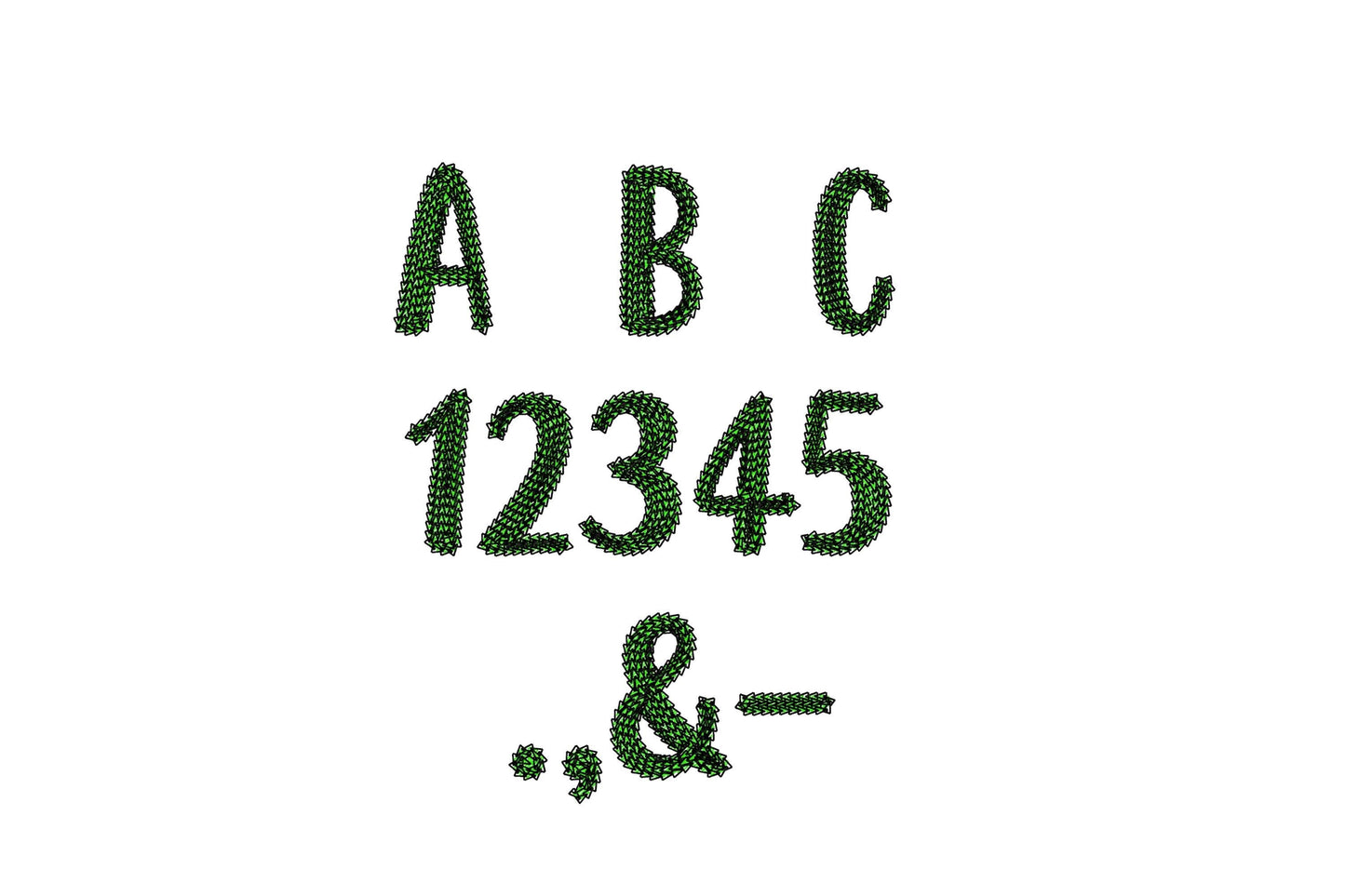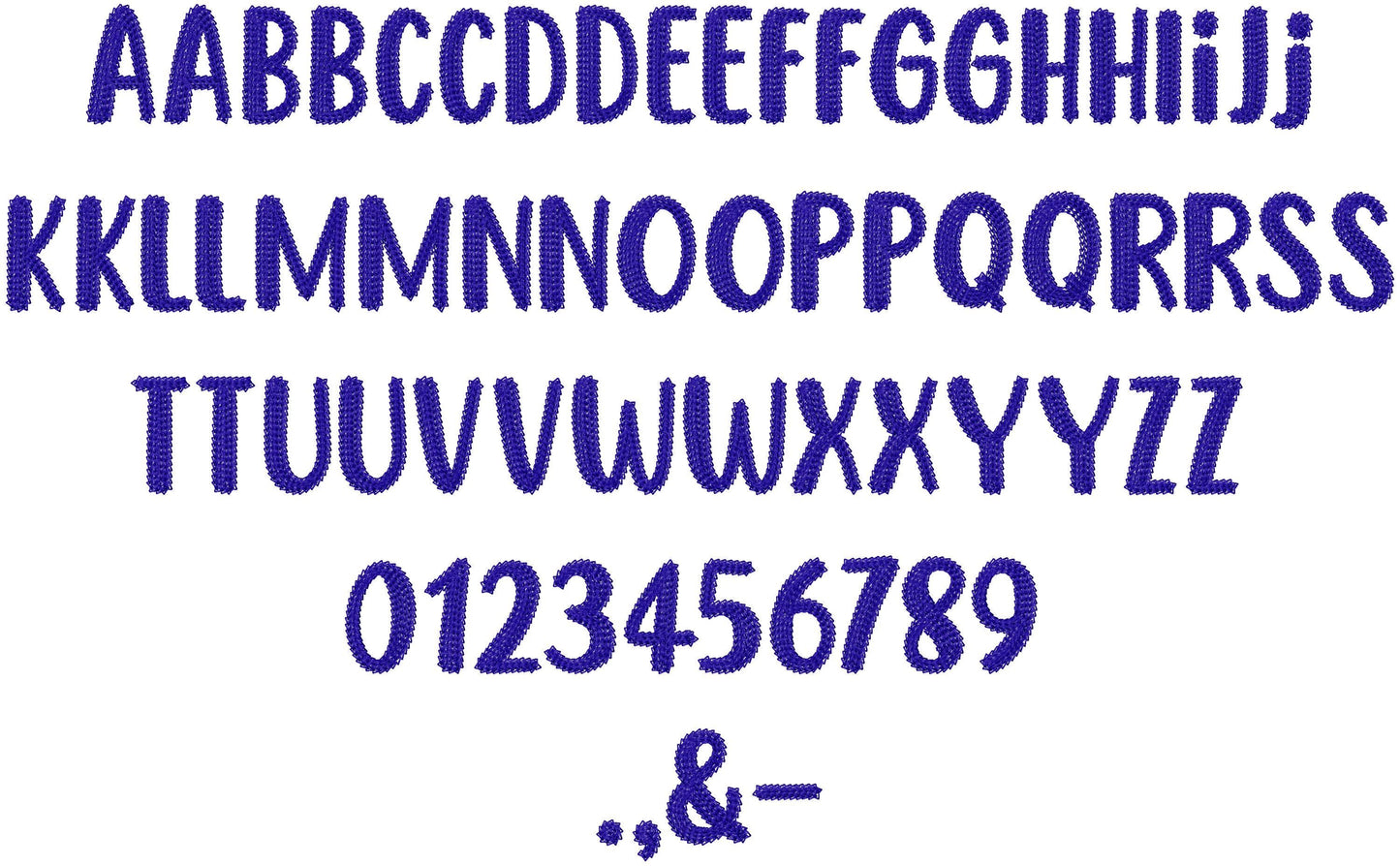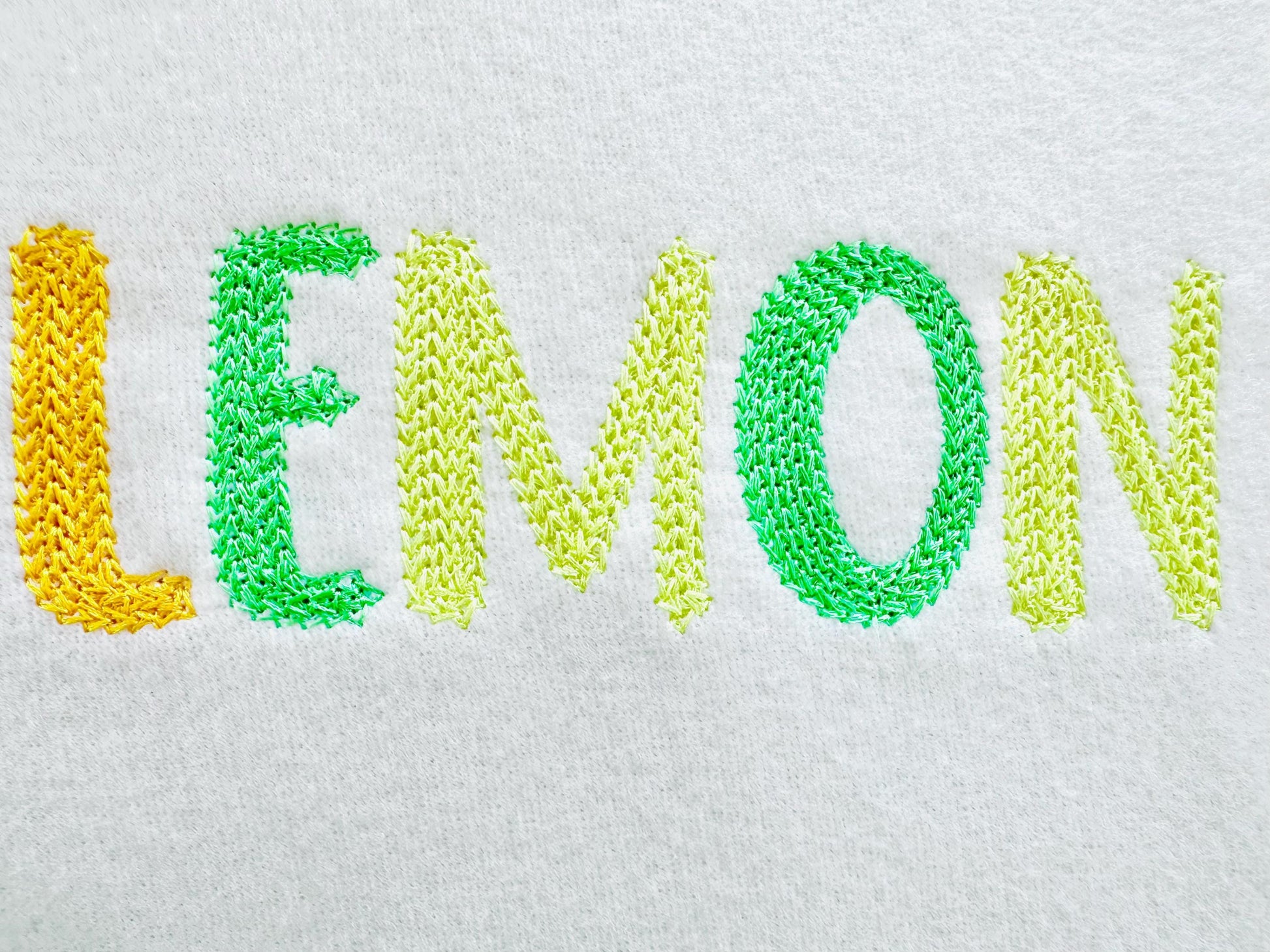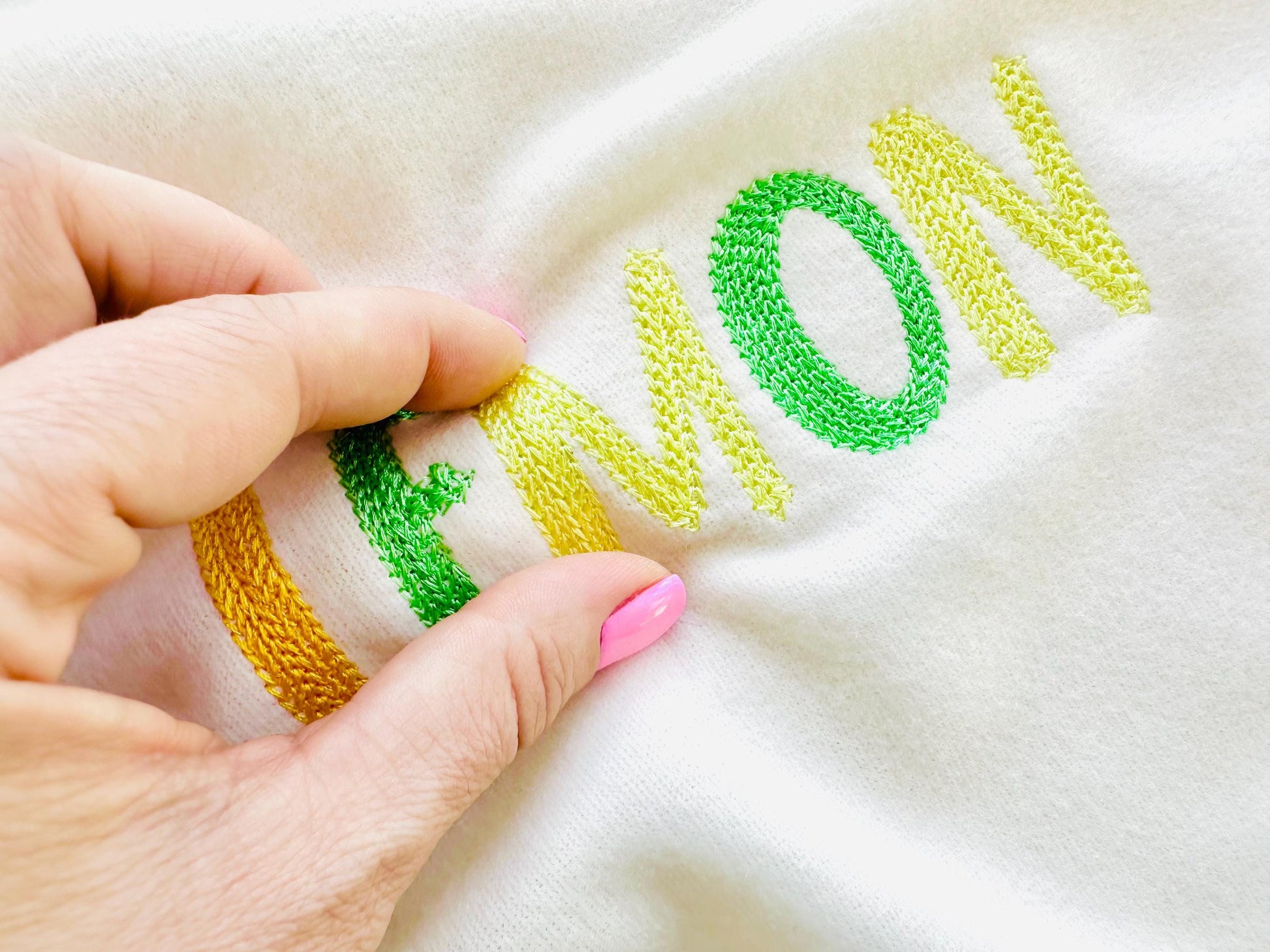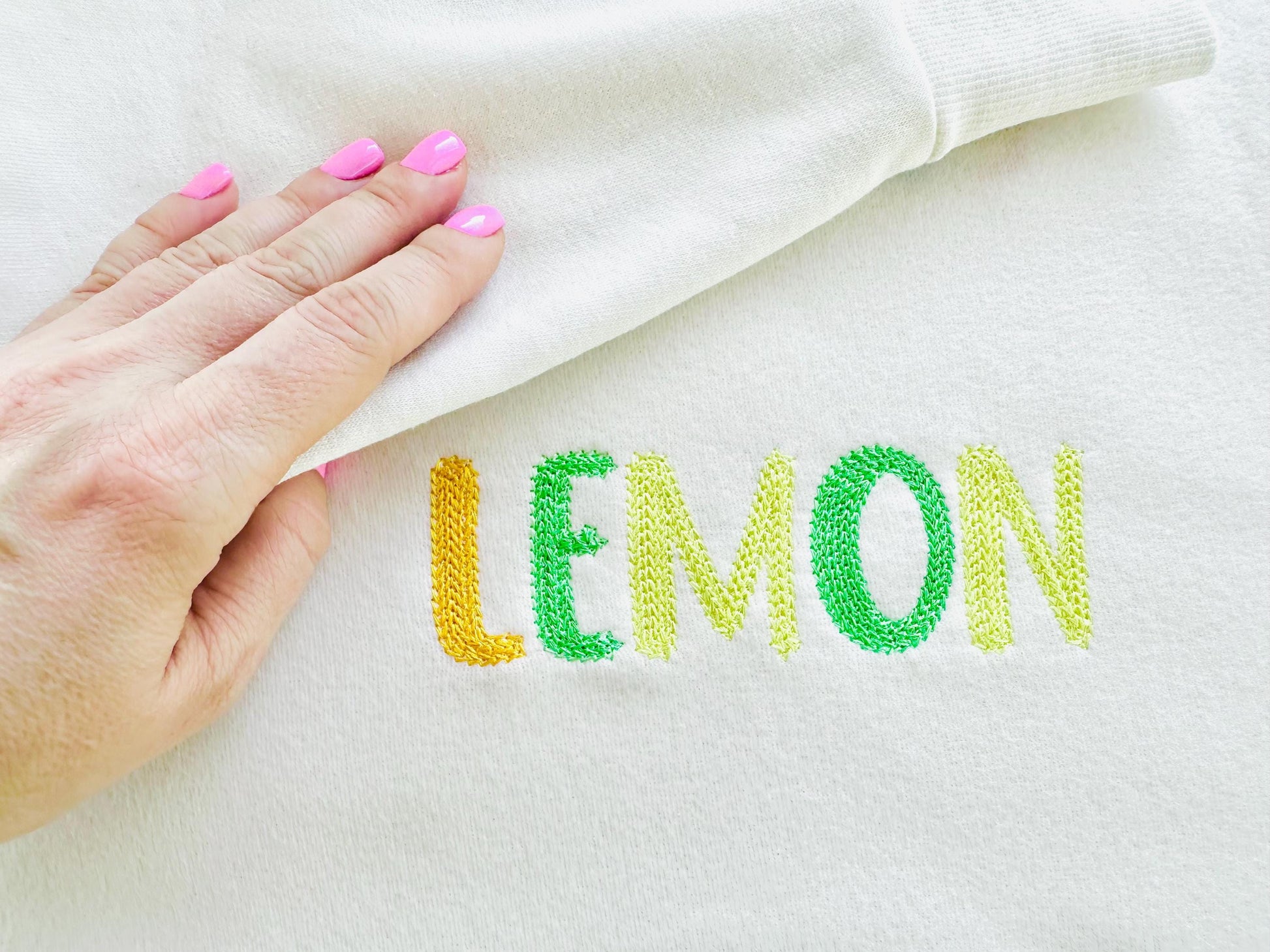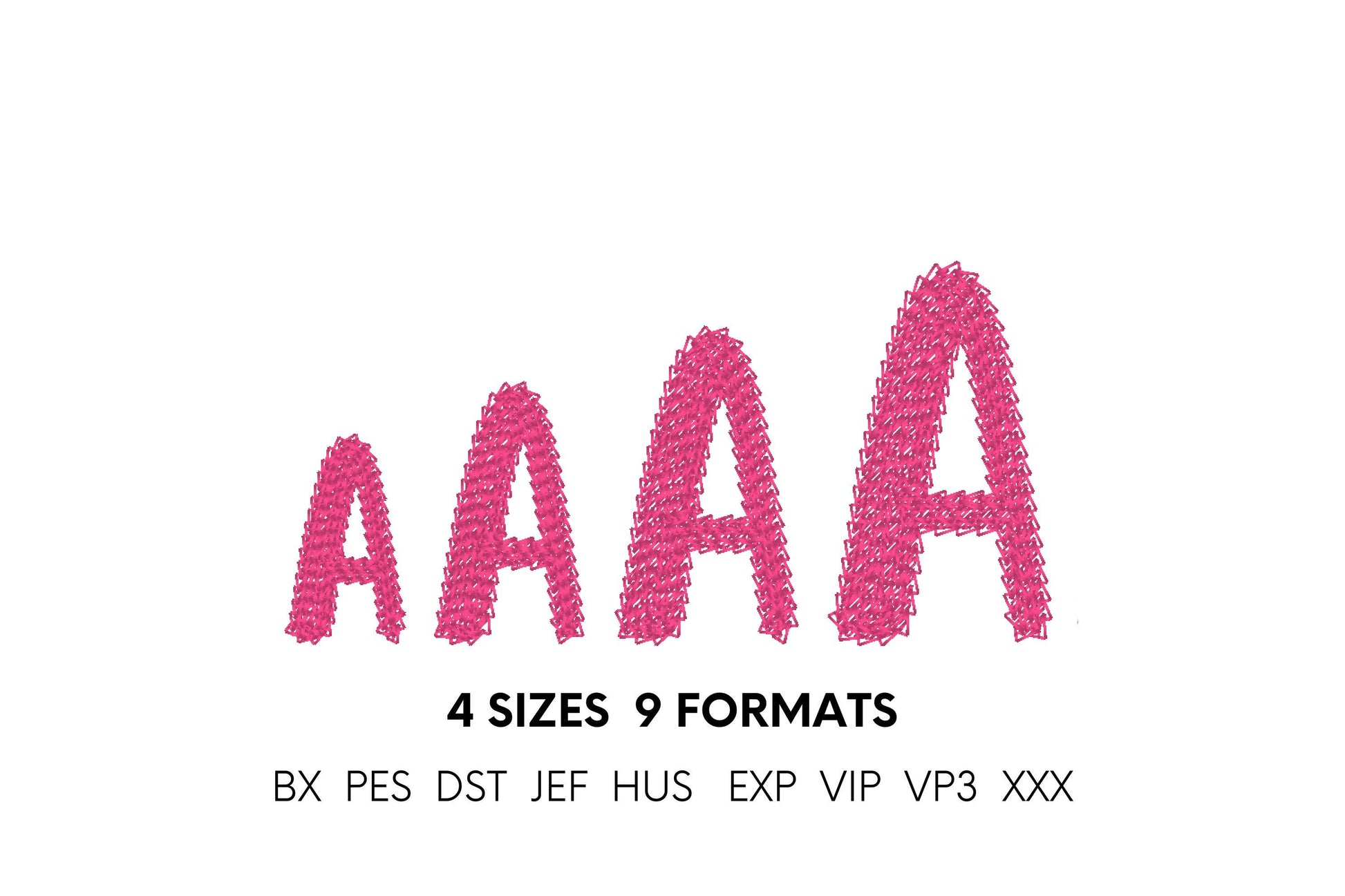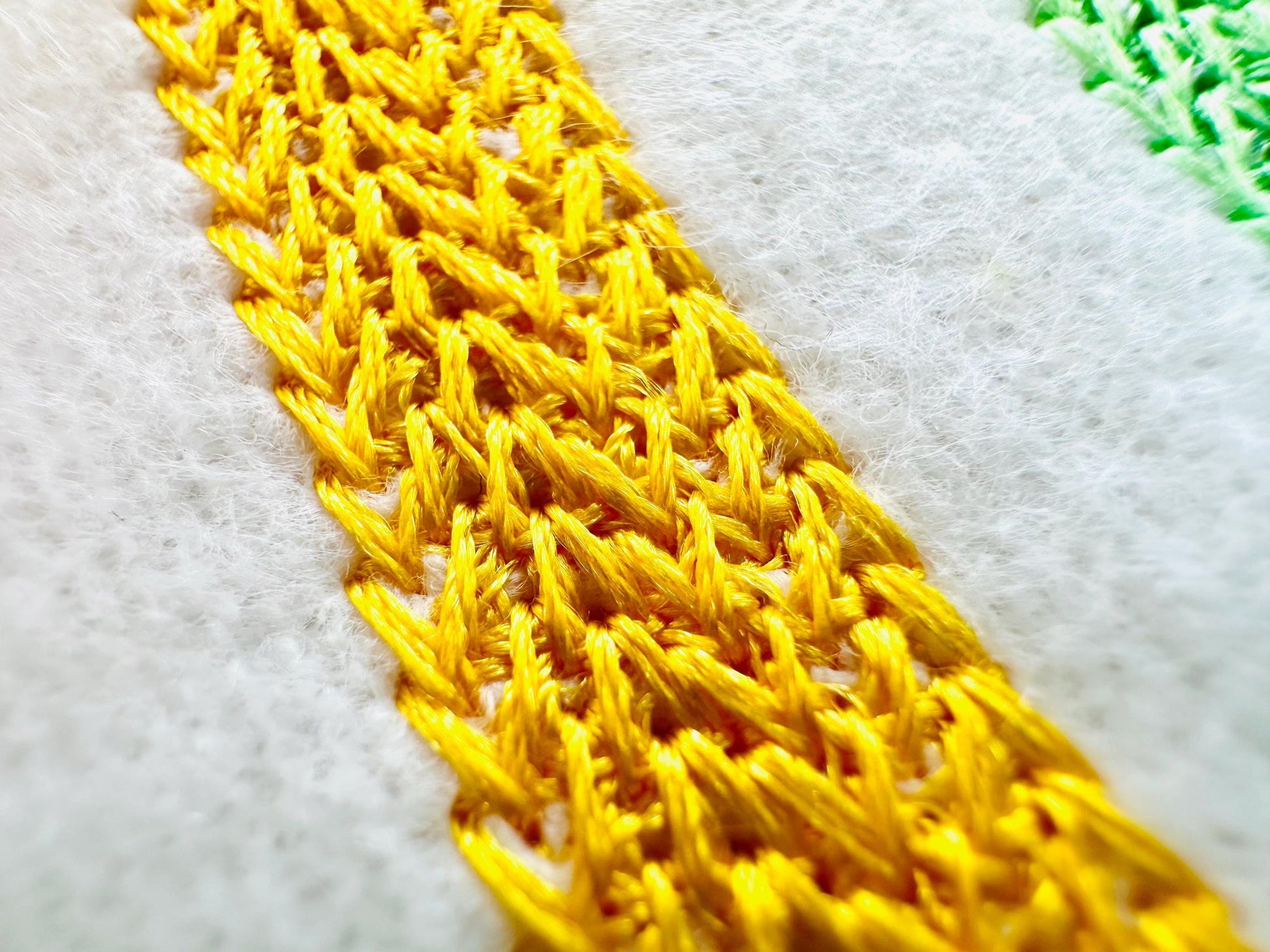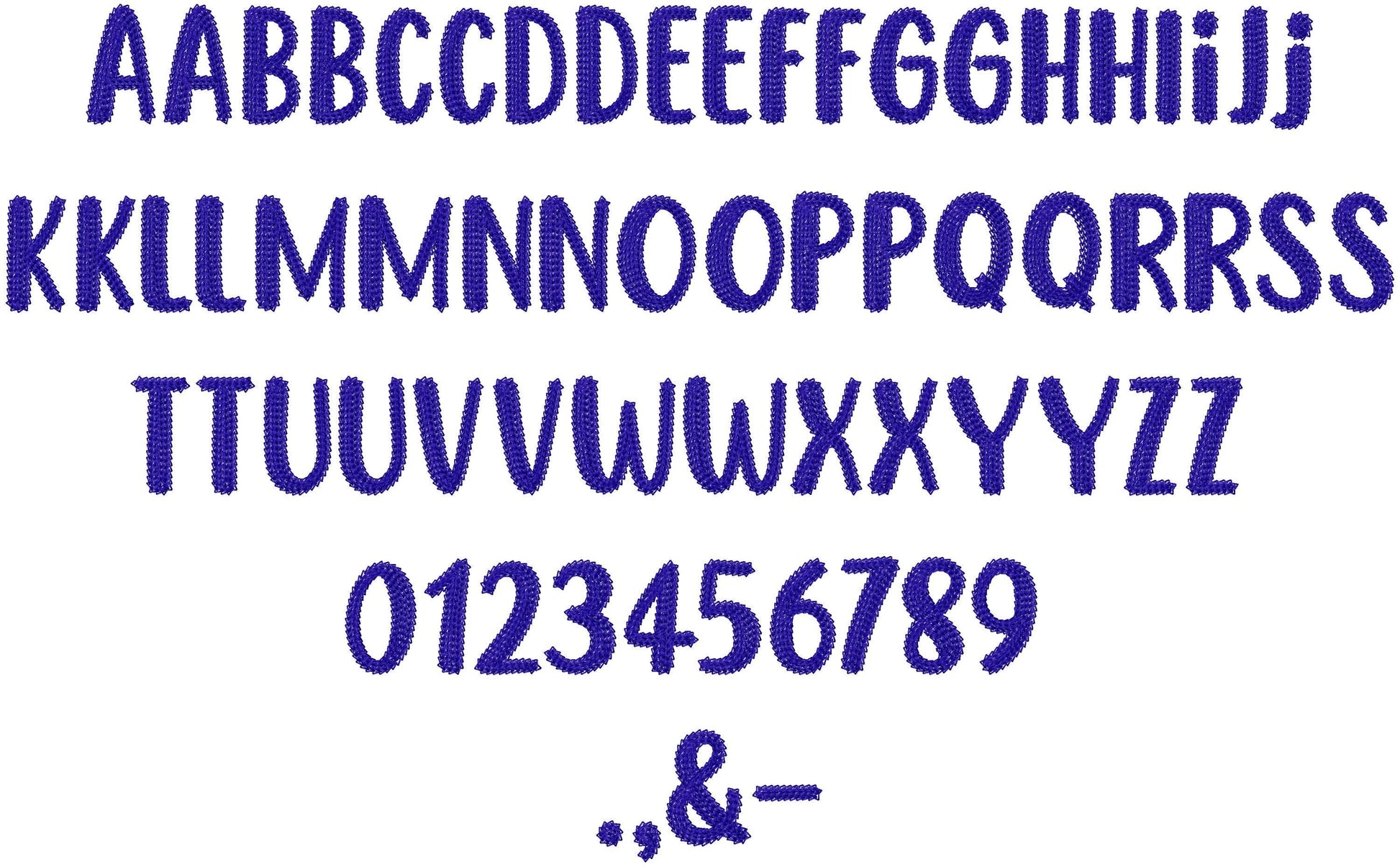
Or click to open the linkA light fill chain font with a hand-stitched look and balanced density that stitches cleanly without puckering, even on light fabrics. Lovely for names and monograms.
Uppercase and lowercase letters, numbers 0 to 9 and the signs & , - . in four sizes: 1.5, 1.8, 2.2 and 2.6 inches.